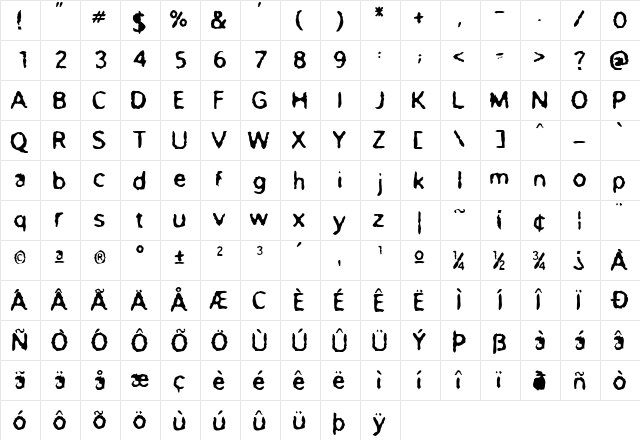
BlueAkkrobat Medium Font Preview
BlueAkkrobat Medium
BlueAkkrobat Medium Font Details
Design Context for BlueAkkrobat Typeface
BlueAkkrobat offers clean, dependable letterforms without strong stylistic allegiance, making it a practical choice for designers who need flexibility.
Pro Tip: Use BlueAkkrobat in both headline and body roles to test its range before committing to a single application.